Choosing the right font can completely change the mood of a wedding invitation. In 2026 couples lean toward designs that feel personal, romantic and stylish without drifting into the overly ornate. Below you’ll find ten fonts that work beautifully for invitations, menus, escort cards and everything in between.
1. Thick Black Font
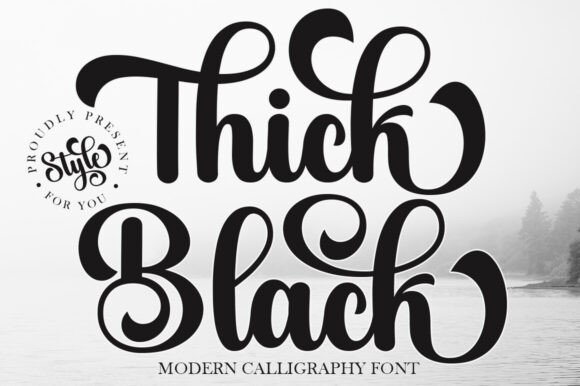
Thick Black is a font that exudes a sense of softness and elegance. With graceful strokes and a feminine touch, this font will elevate any design project to the highest level, be it branding, titles, wedding designs, invitations, signs, logos, labels, and more!
2. Gastonia Script Font
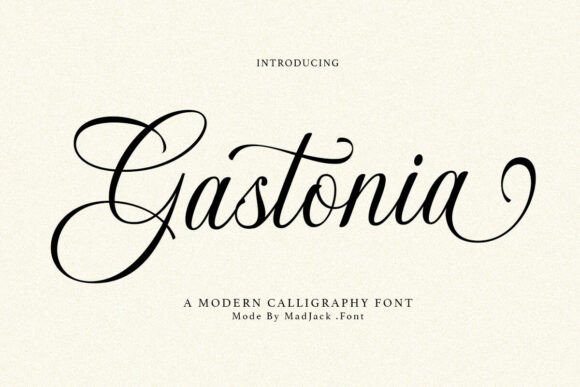
Gastonia is an elegant modern calligraphy font that exudes luxury and sophistication. With its flowing strokes, graceful curves, and refined letterforms, Gastonia is perfect for wedding invitations, branding, upscale packaging, and editorial designs. Its timeless charm and decorative flair make it a go-to choice for designers looking to add a touch of romance and class to their work.
3. Writing Signature Font
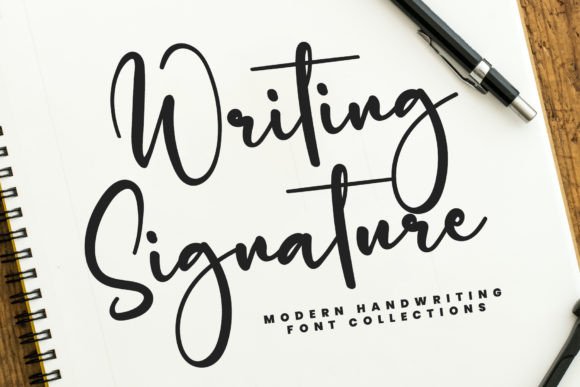
Writing Signature is a stylish and dainty script font. It is suitable for any project, such as logos, branding, labels, photography, watermarks, special events, and all your other lovely projects that need a beautiful script type. This font is PUA-encoded, which means you can access all the glyphs and swashes with ease.
4. Winter Font
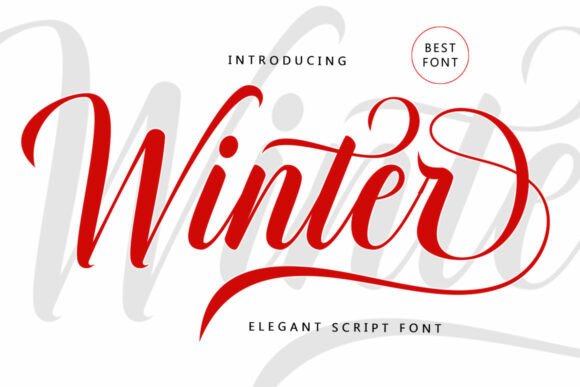
Winter Font is an elegant script font featuring a beautiful character variation. This font combines a classic style with a modern touch, designed with great attention to detail for an elegant look. This font is visually appealing, clean, feminine, and easy to read, thanks to its fancy letter connections. The classic style is perfect for a variety of formal purposes, including invitations, labels, restaurant menus, logos, fashion, makeup, stationery, novels, magazines, books, greeting and wedding cards, packaging, and all kinds of advertising.
5. Honeymoon Font
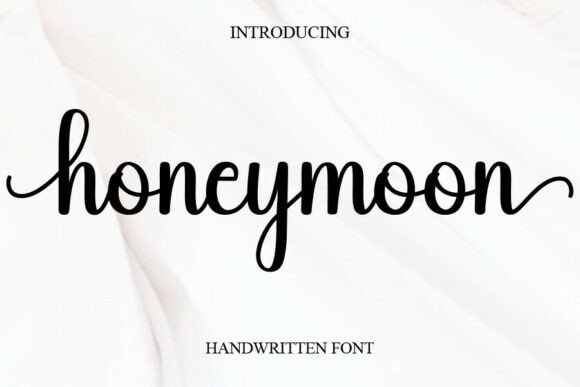
Honeymoon is a sweet and cursive handwritten font. This gentle font will look gorgeous on a variety of design ideas. It will add a joyful and romantic touch to each of your projects! Perfectly fit for branding, logo, wedding things, greeting cards, fashion, lookbook, marketing promotion, and any time you want your design to look fancy and elegant but still casual.